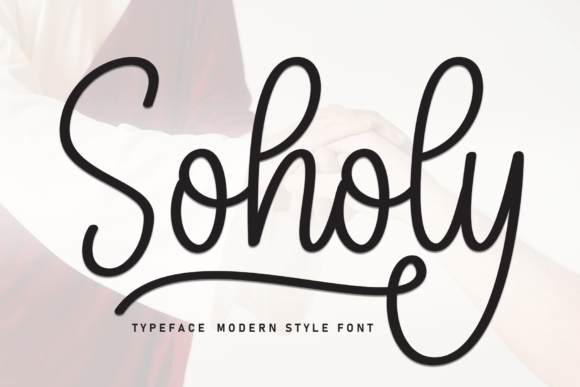
In the world of fonts, Soholy Font stands out as a captivating masterpiece that will ignite your creativity and transform your designs into works of art. This remarkable script font, majestically crafted by andikastudio, is an exquisite symphony of artistic strokes, breathing life into your projects with its whimsical charm.
Dive into the enchanting realm of Soholy Font, where imagination knows no bounds. Its fluid curves and graceful glyphs dance across the page with a life of their own, captivating the eyes and stirring the soul. Unleash your inner artist and let Soholy Font elevate your creations to new heights of visual magic.
Picture the joy of seeing your designs come to life with the whimsical allure of Soholy Font. Its delicate lines and playful characters effortlessly evoke a sense of wonder and delight. Create stunning wall displays that draw gasps of admiration, or infuse your wedding invitations with a touch of enchanting elegance. Let Soholy Font weave its magic into your social media posts, logos, and advertisements, leaving an unforgettable impression on all who behold them.
With Soholy Font by your side, you'll discover endless possibilities for creative expression. Embark on a visual odyssey as you design product packaging and product designs that exude a captivating charm. Craft labels that speak volumes about your brand's unique personality. Infuse your photography with an artistic flair, or create stunning watermarks that add a touch of sophistication to your images.
The versatility of Soholy Font knows no bounds. Whether you're crafting invitations that leave a lasting impression or designing stationery that reflects your refined taste, this font will become your trusted companion. Its adaptability shines through every stroke, blending seamlessly with various projects, each telling a unique story.
Soholy Font is more than just a font; it's an open invitation to explore the depths of your imagination. With its enchanting allure and boundless versatility, this font will transform your designs into masterpieces. Embark on a creative odyssey today and witness the magic unfold.